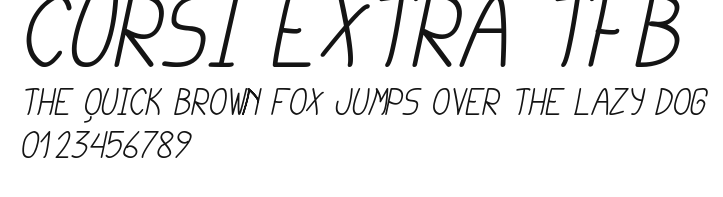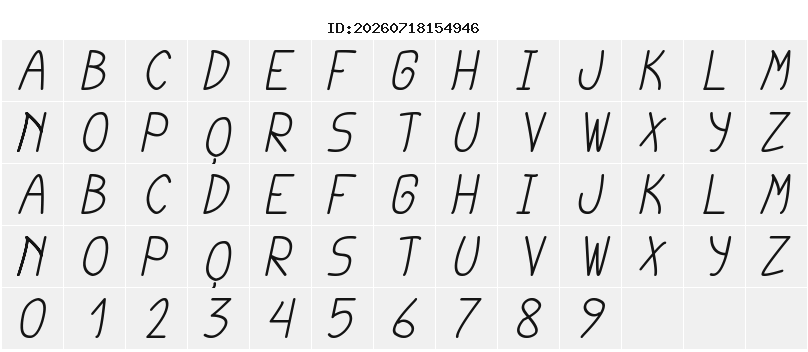
cursi extra tfb Preview
• Font Name: cursi extra tfb
About cursi extra tfb.ttf
cursi extra tfb.ttf is a modern, elegant sans-serif font designed for ultimate readability and visual harmony. Perfect for branding, headlines, web design, and print materials.